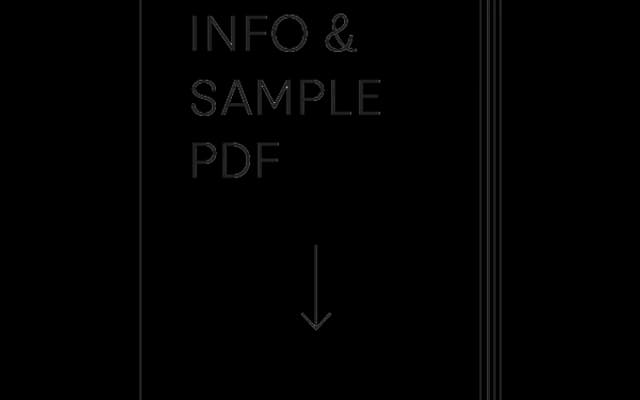
Rektorat
Nouvelle Noire · Rudolf Barmettler, Anton Studer · 2018
A grotesque sans drawn from 1933 signage lettering discovered behind wallpaper during the 2001 renovation of the Zurich building housing the Kunstgewerbeschule and Museum für Gestaltung.
Rektorat traces its origins to institutional hand-lettering made for a Swiss modernist building in 1933, rediscovered decades later and painstakingly redrawn in ink by Rudolf Barmettler with students. The digital family, reworked from 2014 with Anton Studer, runs across 14 cuts in seven weights from Hairline to Heavy, each available in a standard and a Re variant. The result is a historically grounded grotesque with a specific provenance that gives it more character than a generic revival.
Rektorat derives from 1933 institutional signage lettering, placing it firmly in the grotesque sans-serif tradition with its even stroke weights and upright structure characteristic of early modernist European letterforms.